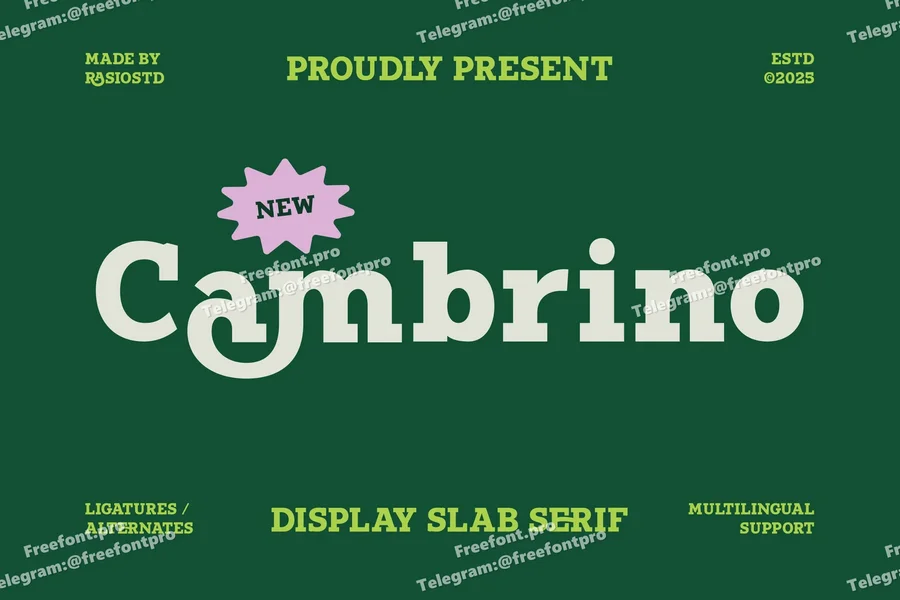
Cambrino Slab Serif
Cambrino is a bold display slab serif that merges athletic energy with retro charm. Featuring powerful slab forms, quirky ligatures, and unique alternates, Cambrino strikes the perfect balance between strength and style. With its expressive letterforms and sporty charisma, it’s ideal for sports branding, team posters, retro logos, editorial headlines, and youthful merchandise. This font doesn’t just spell words—it energizes them with motion and personality. With multilingual support and dynamic typographic variety, Cambrino brings playful precision to every project.
Relevance and Use Cases is perfect for sports branding, team posters, editorial headlines, retro logo design, youth-focused merchandise, fashion campaigns, event flyers, creative packaging, and magazine layouts.
Ligatures & Alternate
Numeral & Punctuations